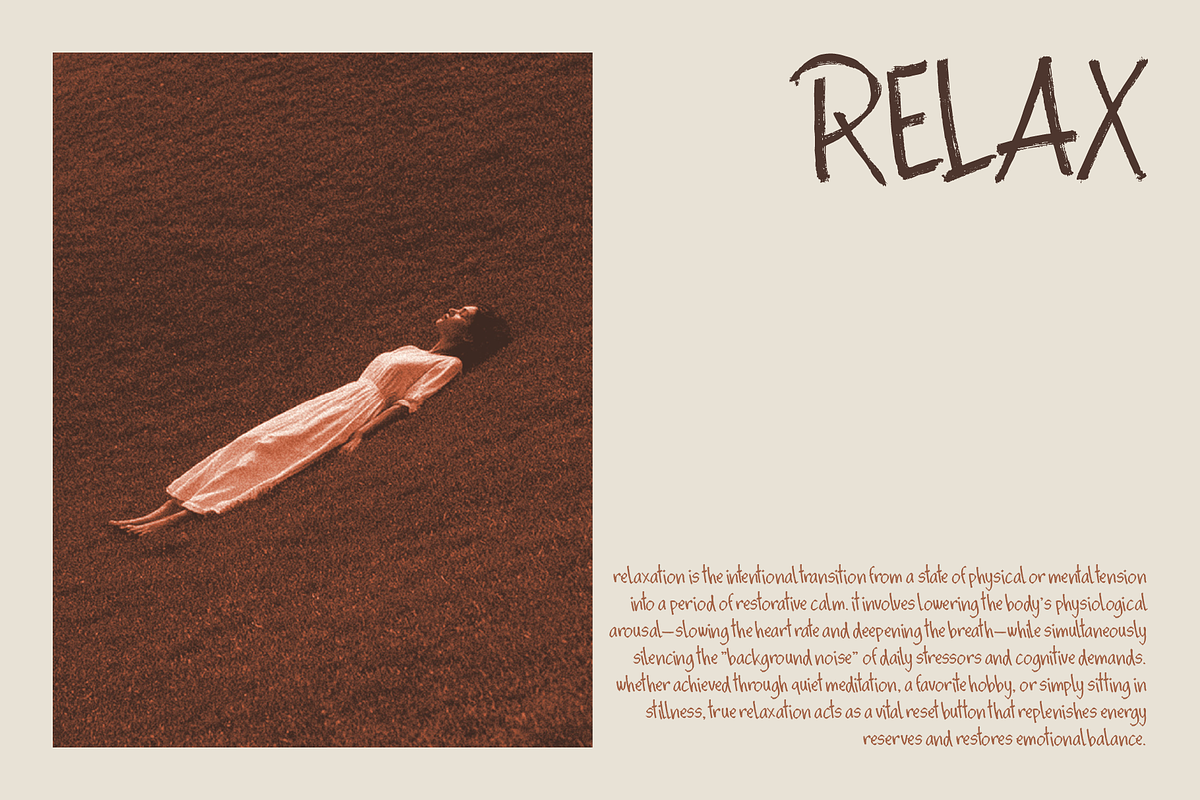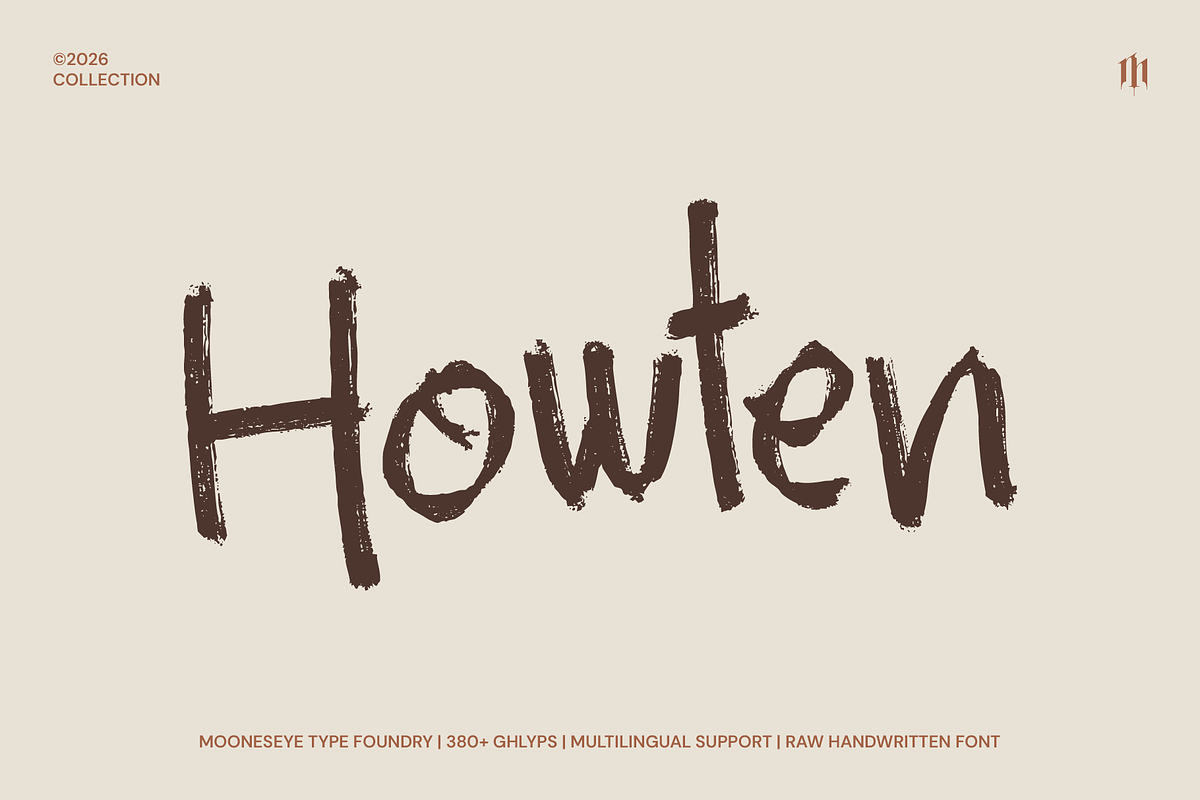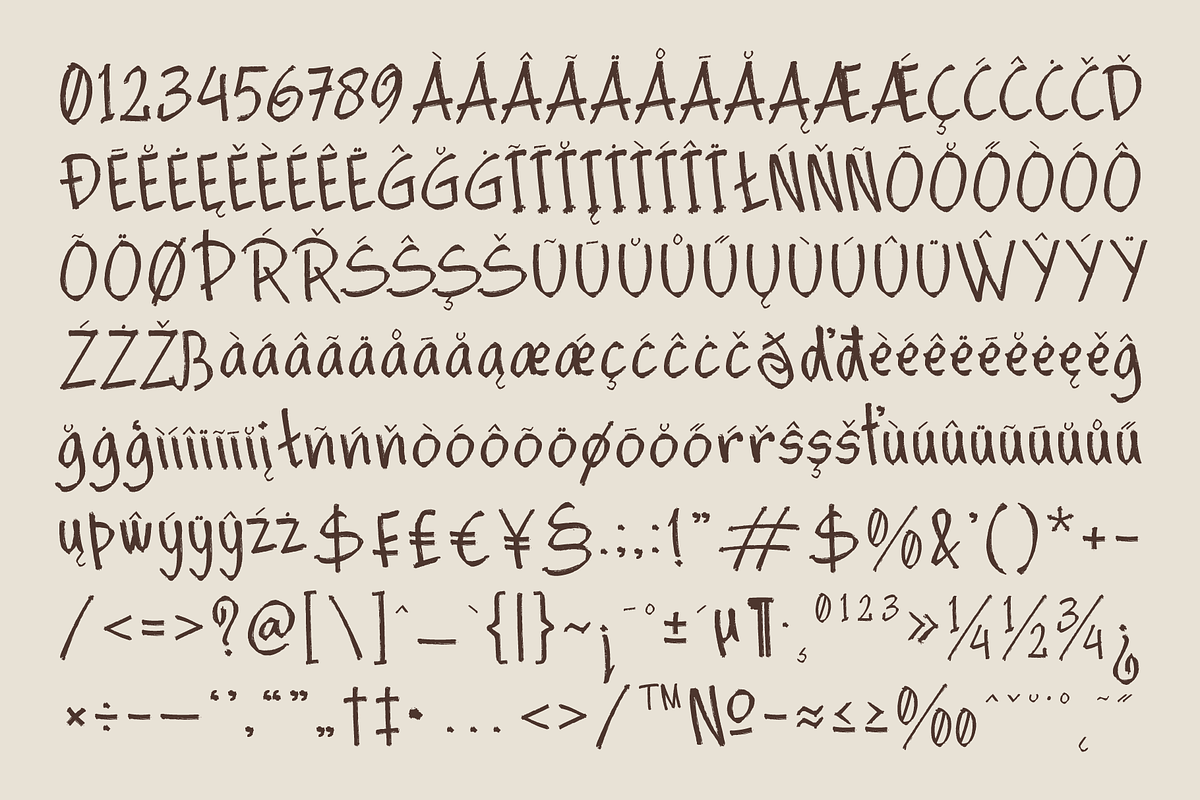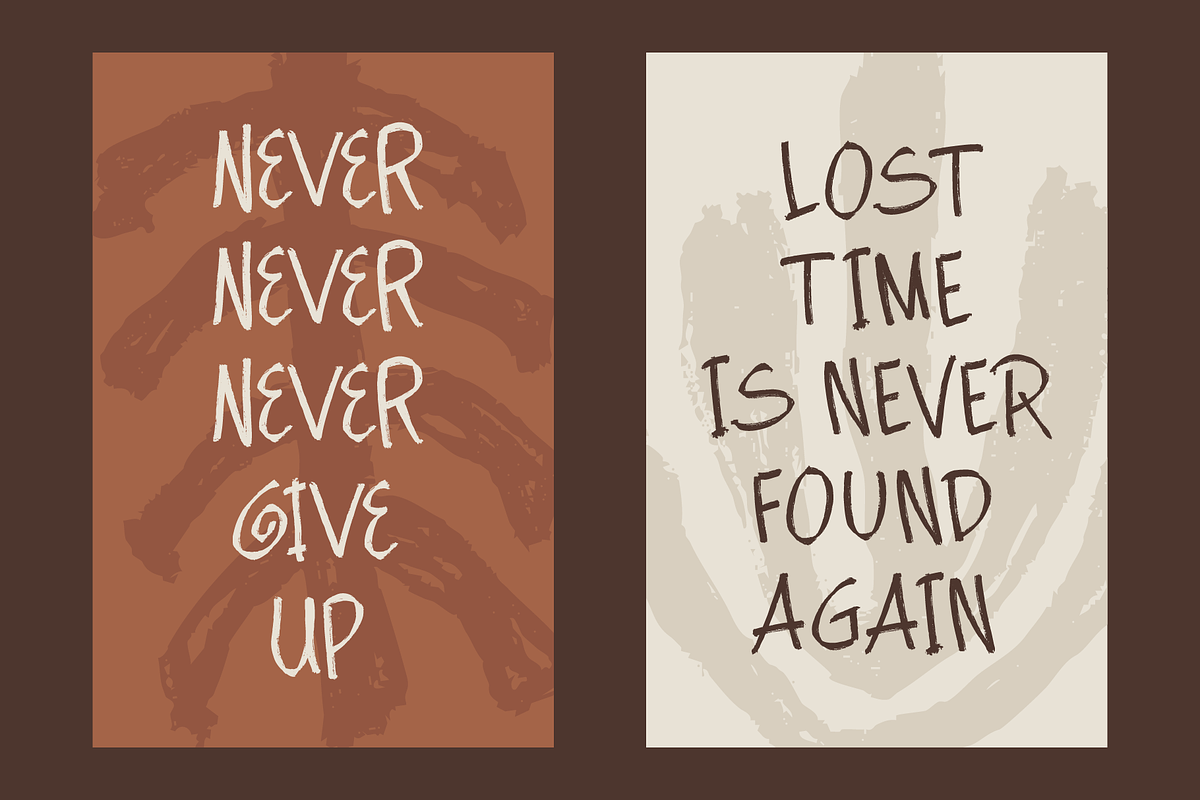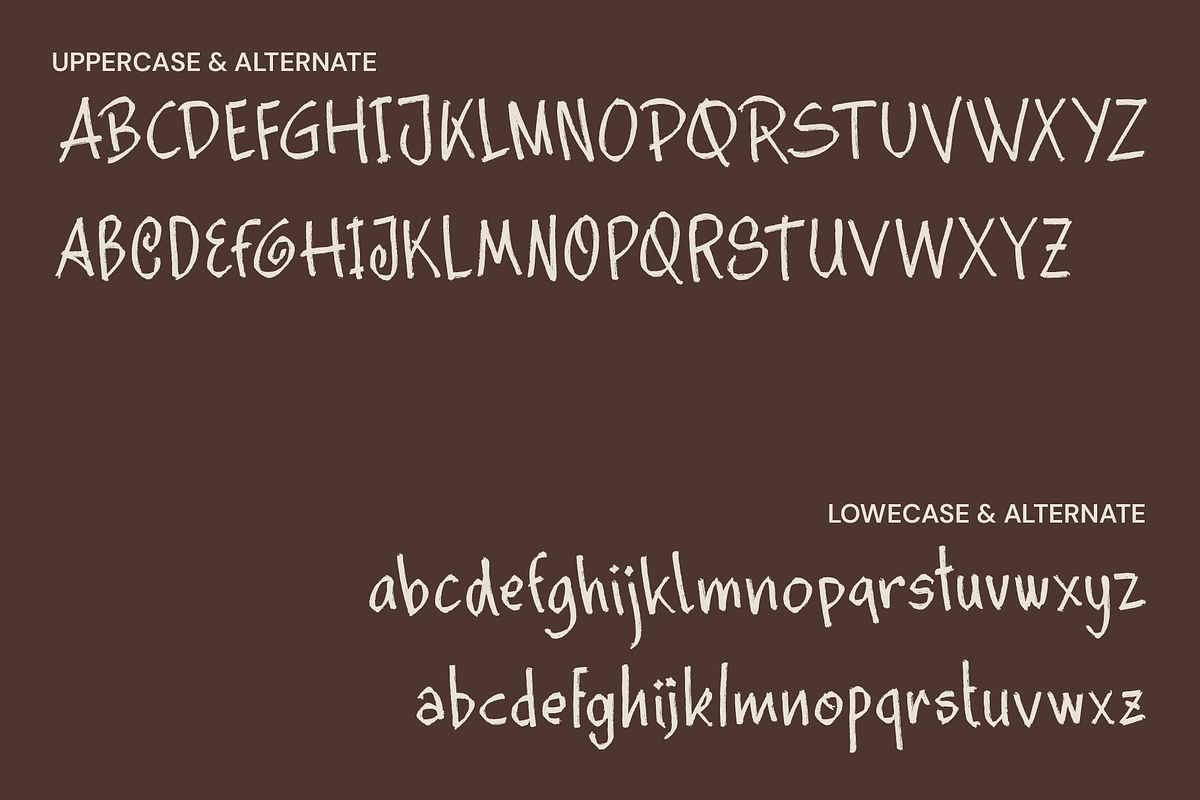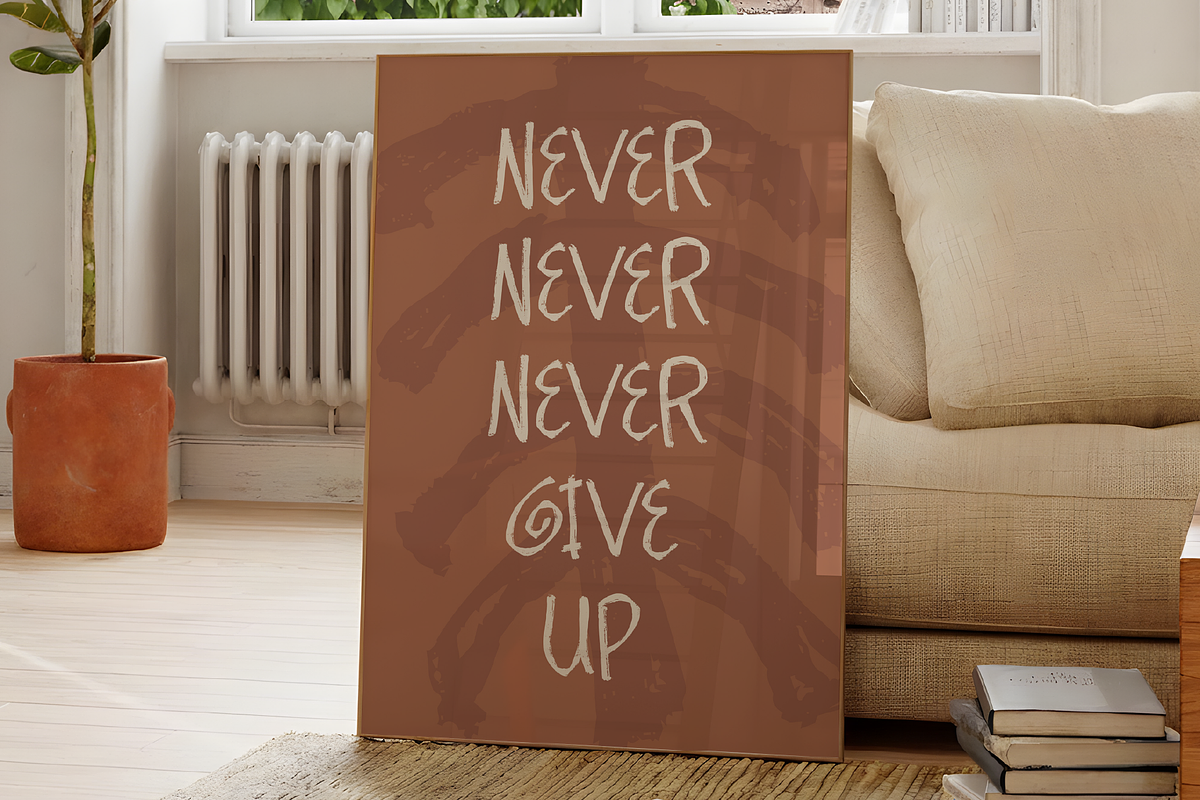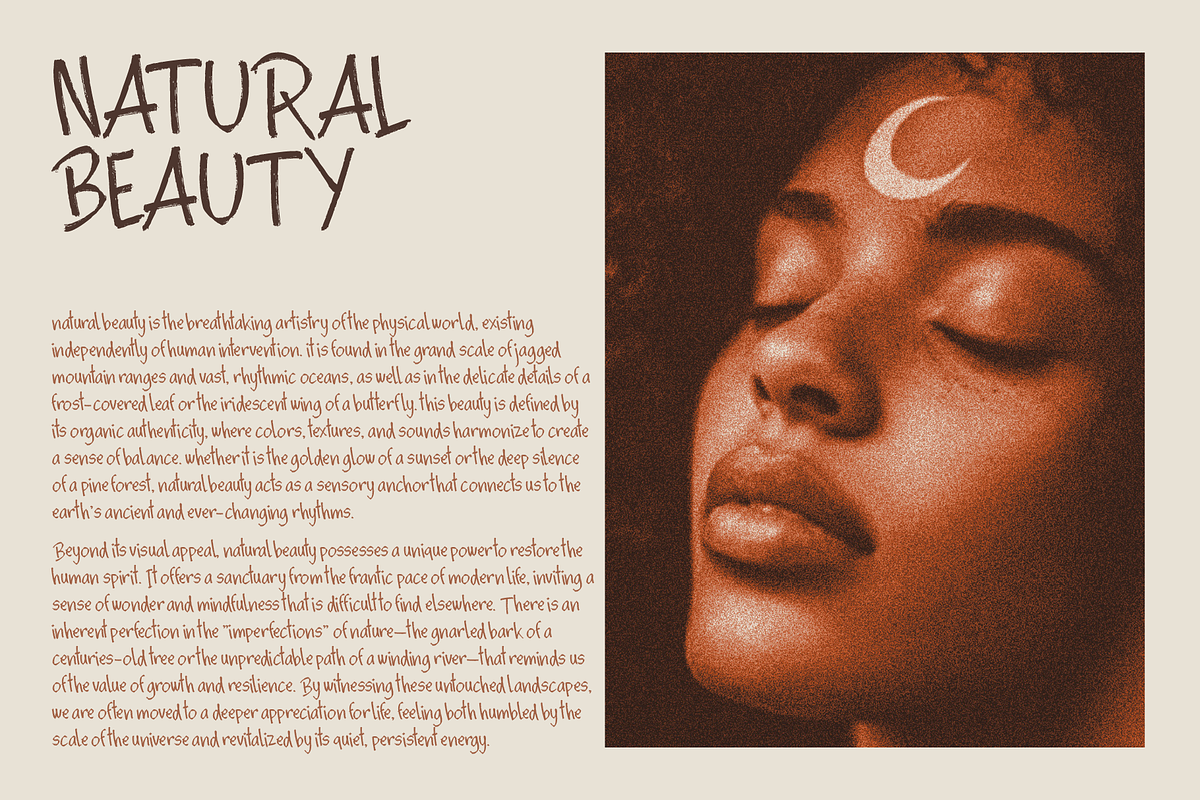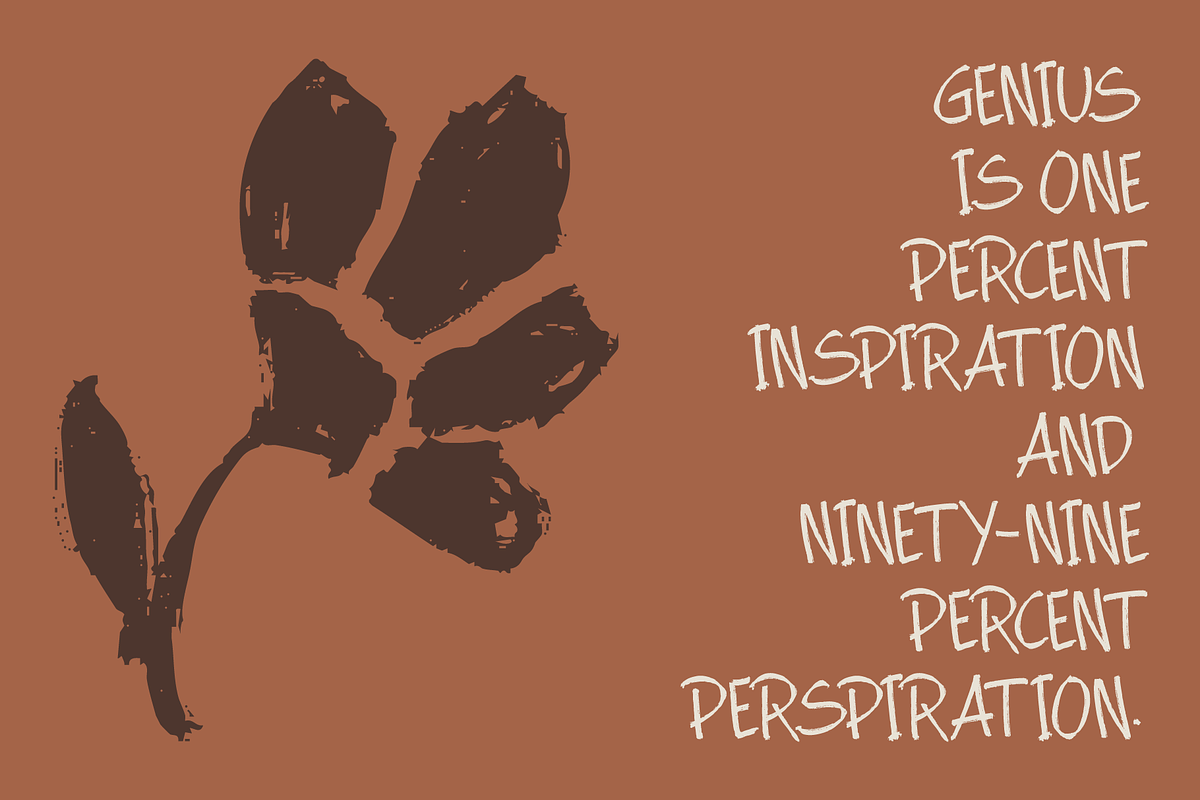
Howten - Raw Handwritten Display Fon
Howten isn’t just another typeface; it’s a captured moment of ink meeting paper. With its raw, gritty texture and tall, sophisticated silhouette, it breaks away from the cold perfection of standard fonts to offer something deeply personal and authentic. Whether you are designing for a slow-living lifestyle brand or a cozy boutique, Howten provides that "hand-scanned" aesthetic that feels warm, approachable, and high-end.
Imagine your favorite organic candle label, a heartfelt Instagram quote, or a minimalist wedding invite—Howten fits perfectly wherever a natural, earthy vibe is needed. It’s designed to be tall and slim, making it incredibly easy to read while maintaining its whimsical, wobbly charm.
Suitable For
- Organic Product Packaging: Perfect for apothecary, soaps, and eco-friendly labels.
- Instagram & TikTok Graphics: Ideal for trending "slow living" quotes and reels.
- Boutique Branding: Create a sophisticated, handmade logo in seconds.
- Cricut & DIY Crafts: Solid enough for vinyl cutting on wood or fabric.
- Editorial Layouts: High-end look for travel and wellness magazine headers.
- Etsy Printables: Beautiful for wall art, planners, and greeting cards.